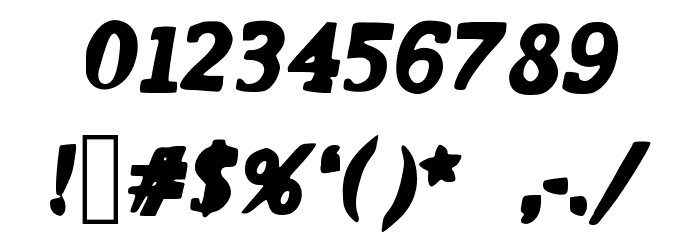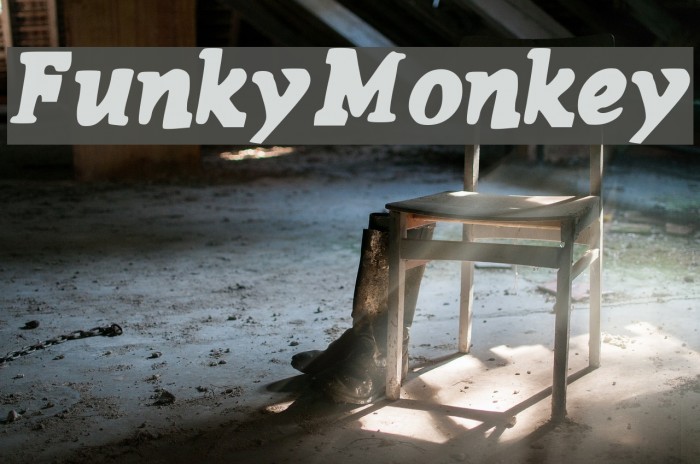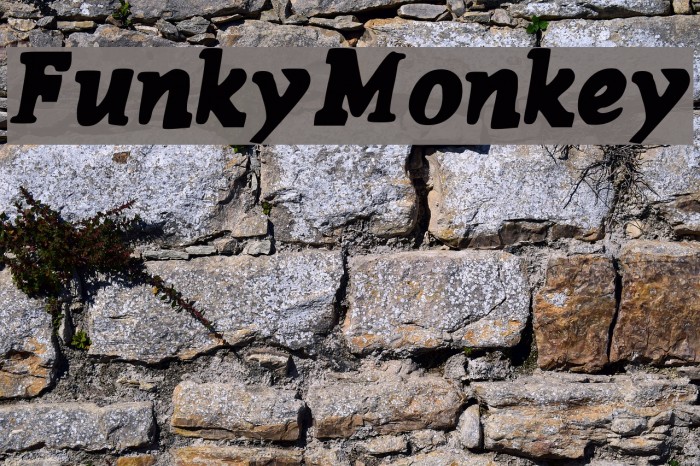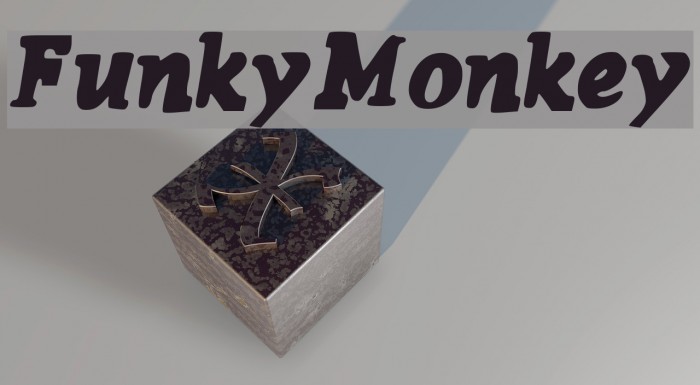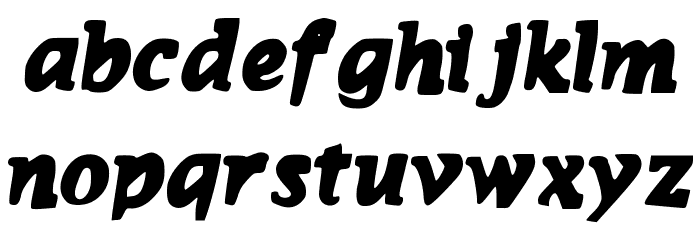
FunkyMonkey Font
FunkyMonkey Description
This font exudes a playful and dynamic energy, characterized by its bold and slightly italicized letterforms. The strokes are thick and rounded, giving it a friendly and approachable appearance. The uppercase letters are robust and commanding, while the lowercase letters maintain a consistent flow with a slight slant, enhancing its casual vibe. The numerals are equally bold, ensuring readability and uniformity across different uses. Special characters are crafted with the same attention to detail, making them stand out without overpowering the overall design. This font is perfect for projects that require a touch of fun and creativity.
| Overall Style | Playful, Creative |
| Proposed Projects | Ideal for children's books, playful branding, event posters, and creative advertising. |